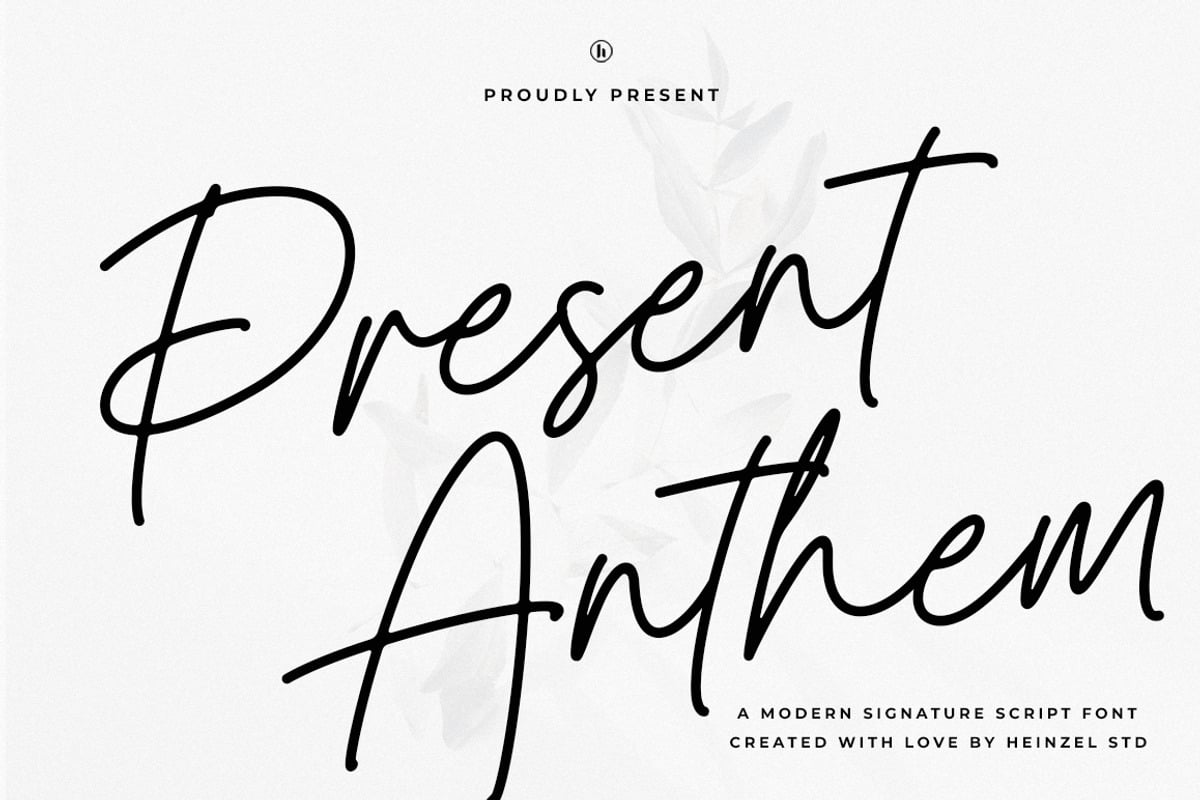
Present Anthem Modern Signature Font
Present Anthem is the modern signature font that brings natural elegance and expressive handwriting to every creative project.
With flowing strokes, stylish letterform connections, and an authentic signature character, Present Anthem delivers a sophisticated yet personal impression. Its graceful design works beautifully in both minimal compositions and bold display layouts.
Perfect for a wide range of creative applications, including:
- Logos and brand identity design
- Fashion and editorial artwork
- Wedding invitations and stationery
- Photography branding and portfolios
- Social media graphics and packaging
- Greeting cards and luxury branding